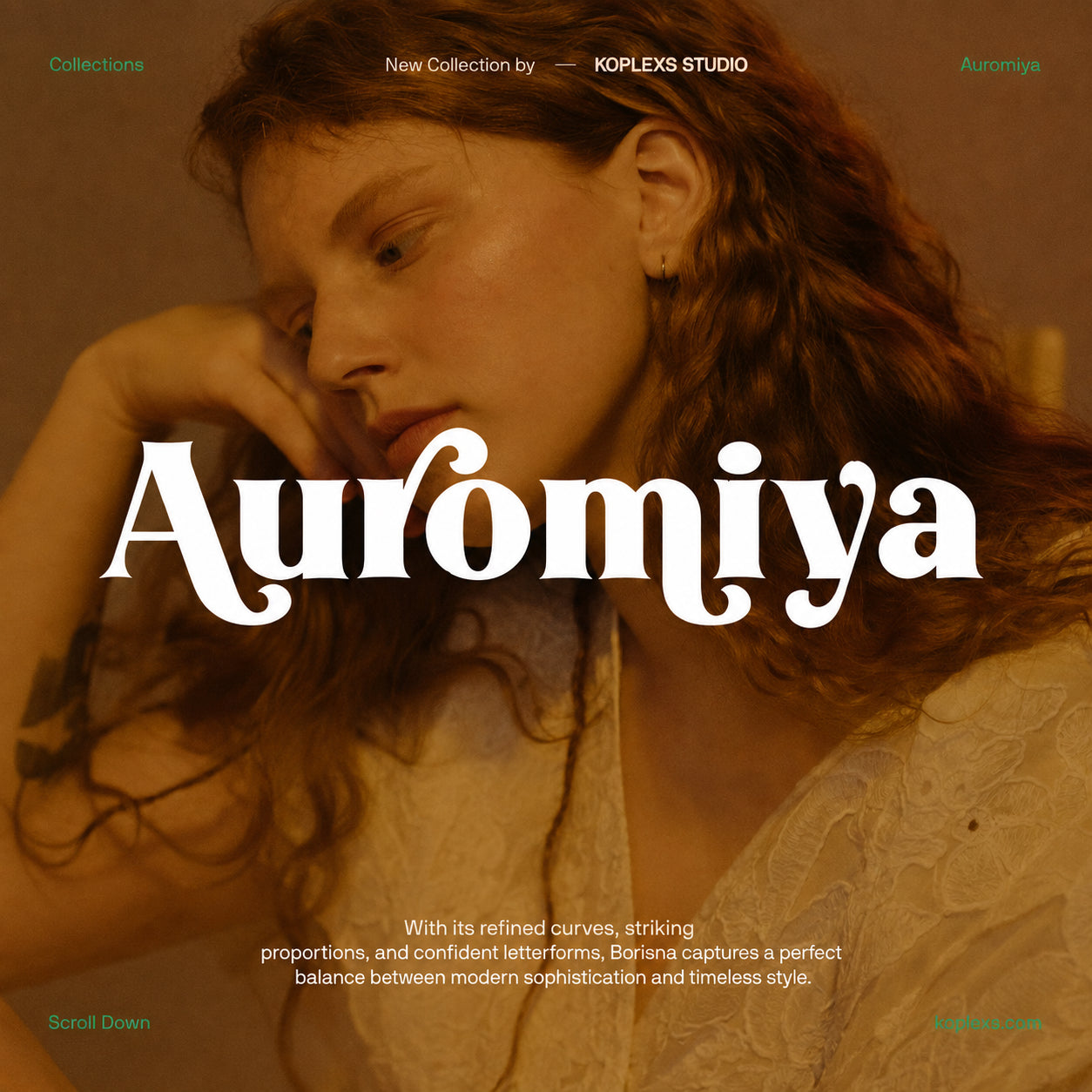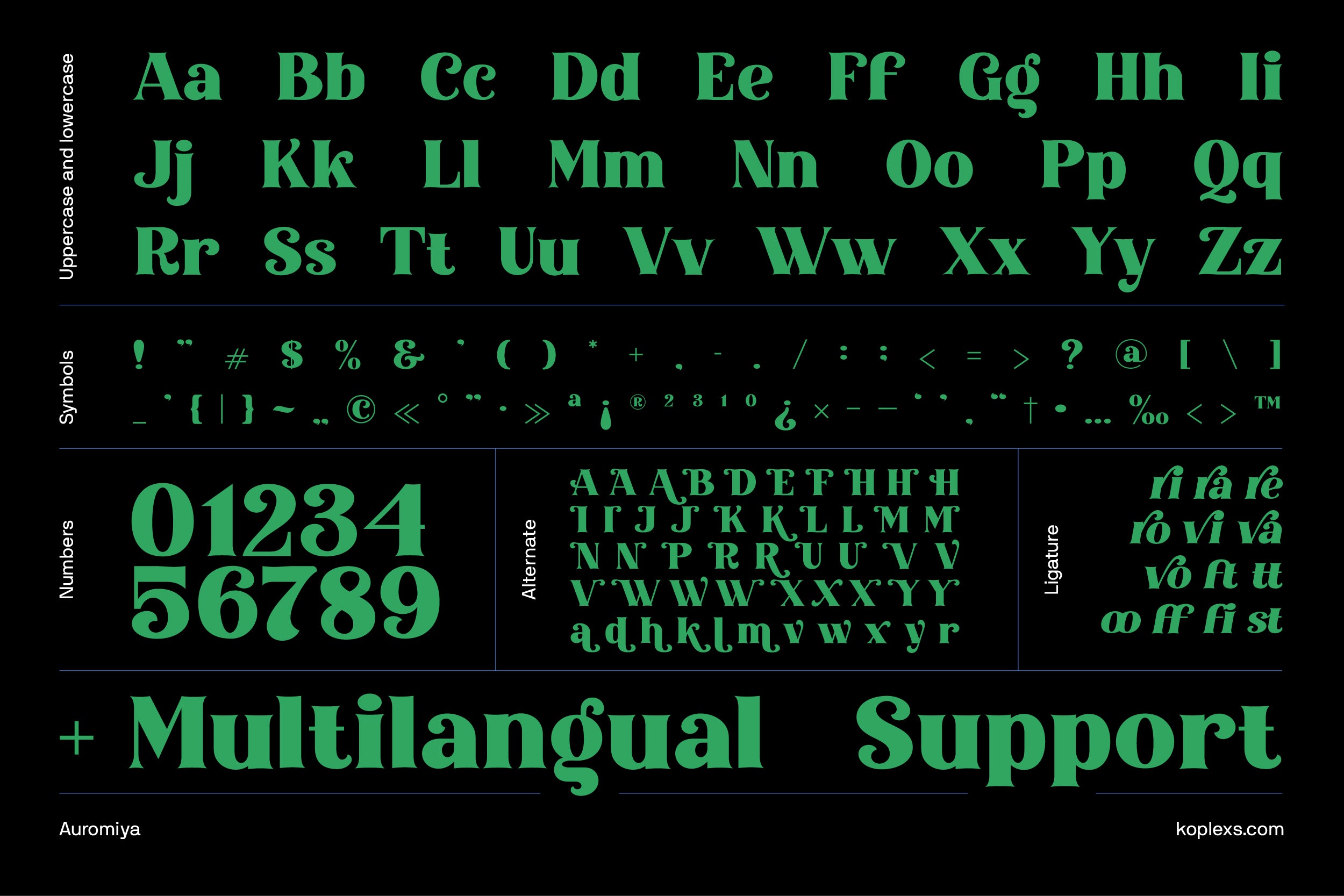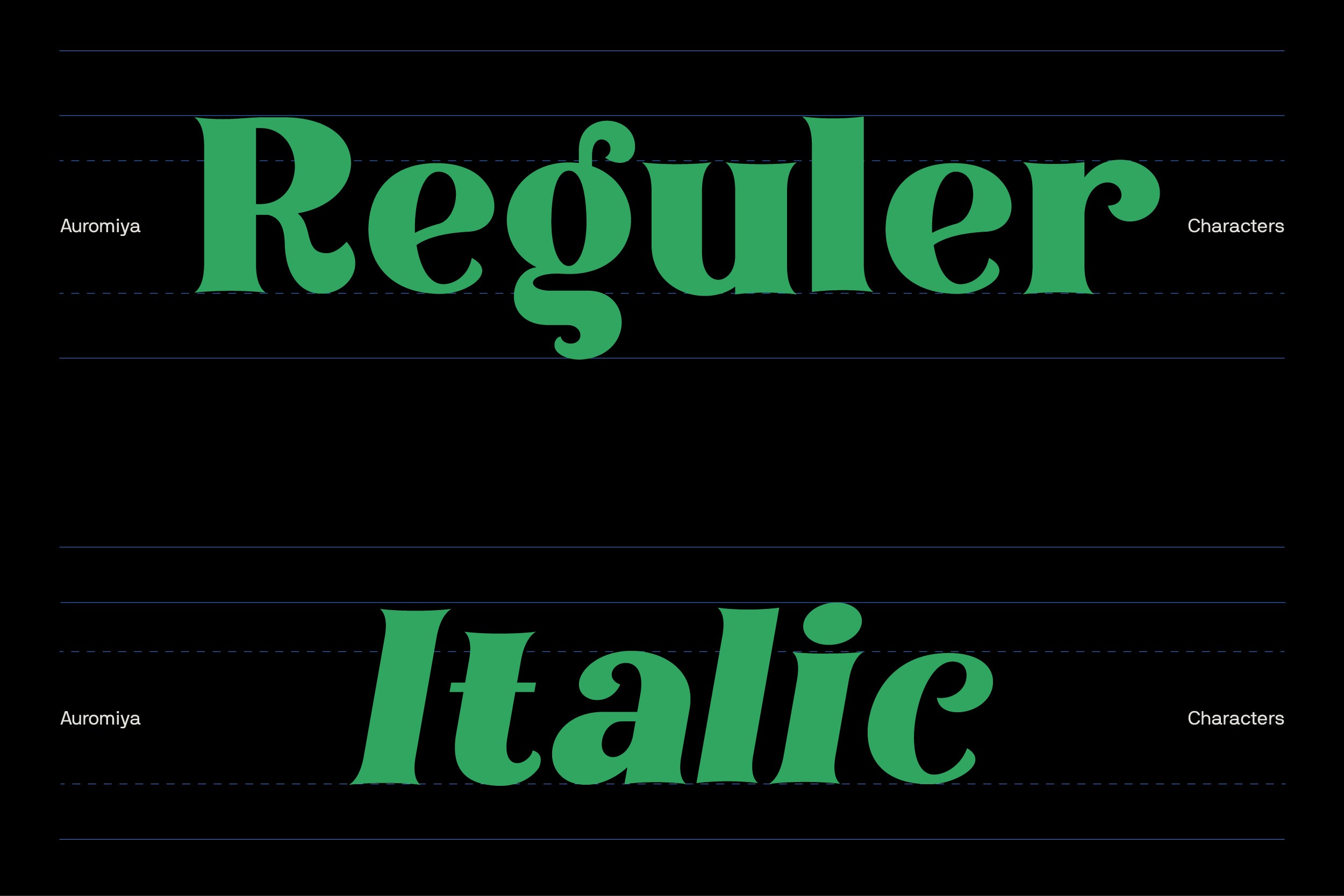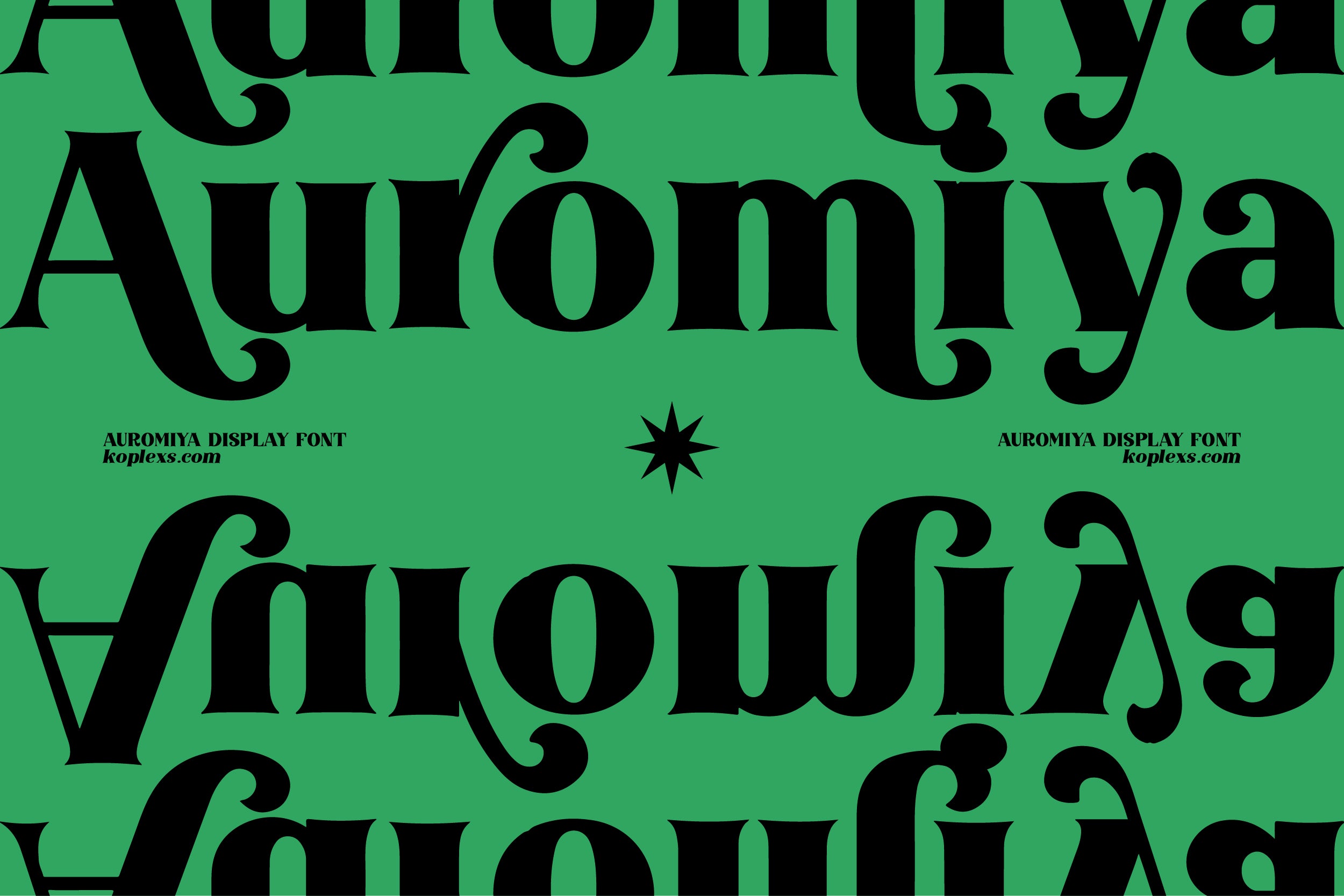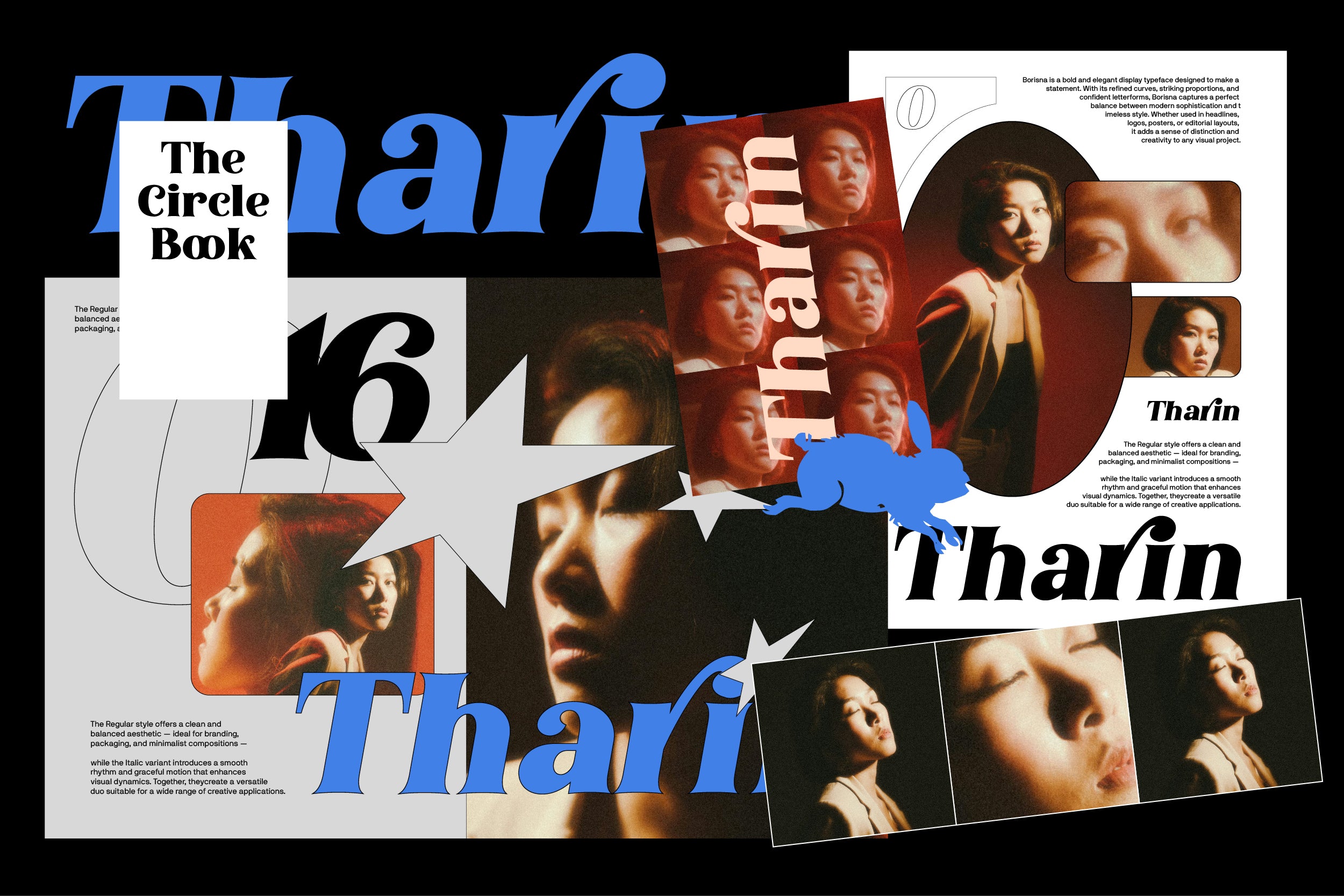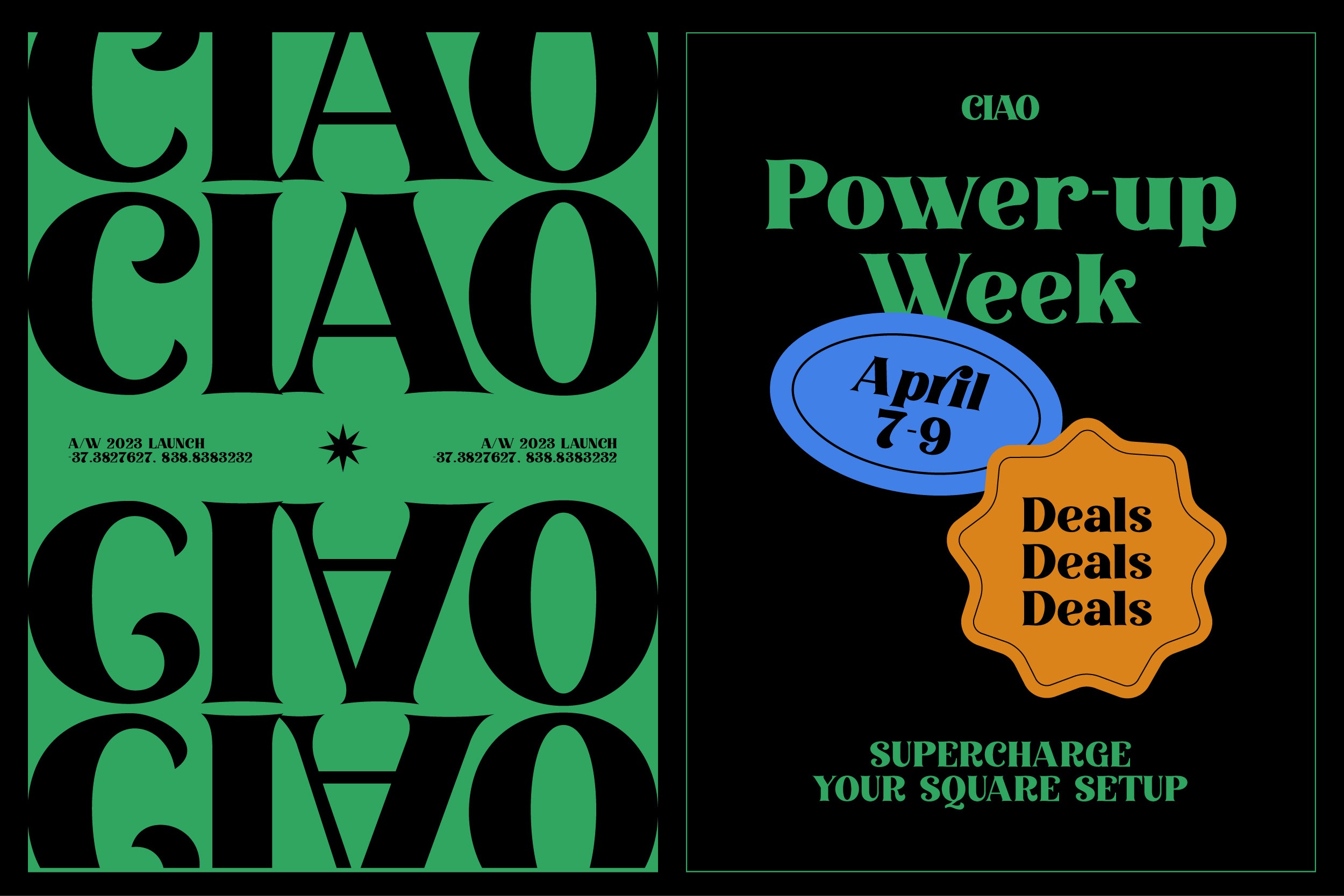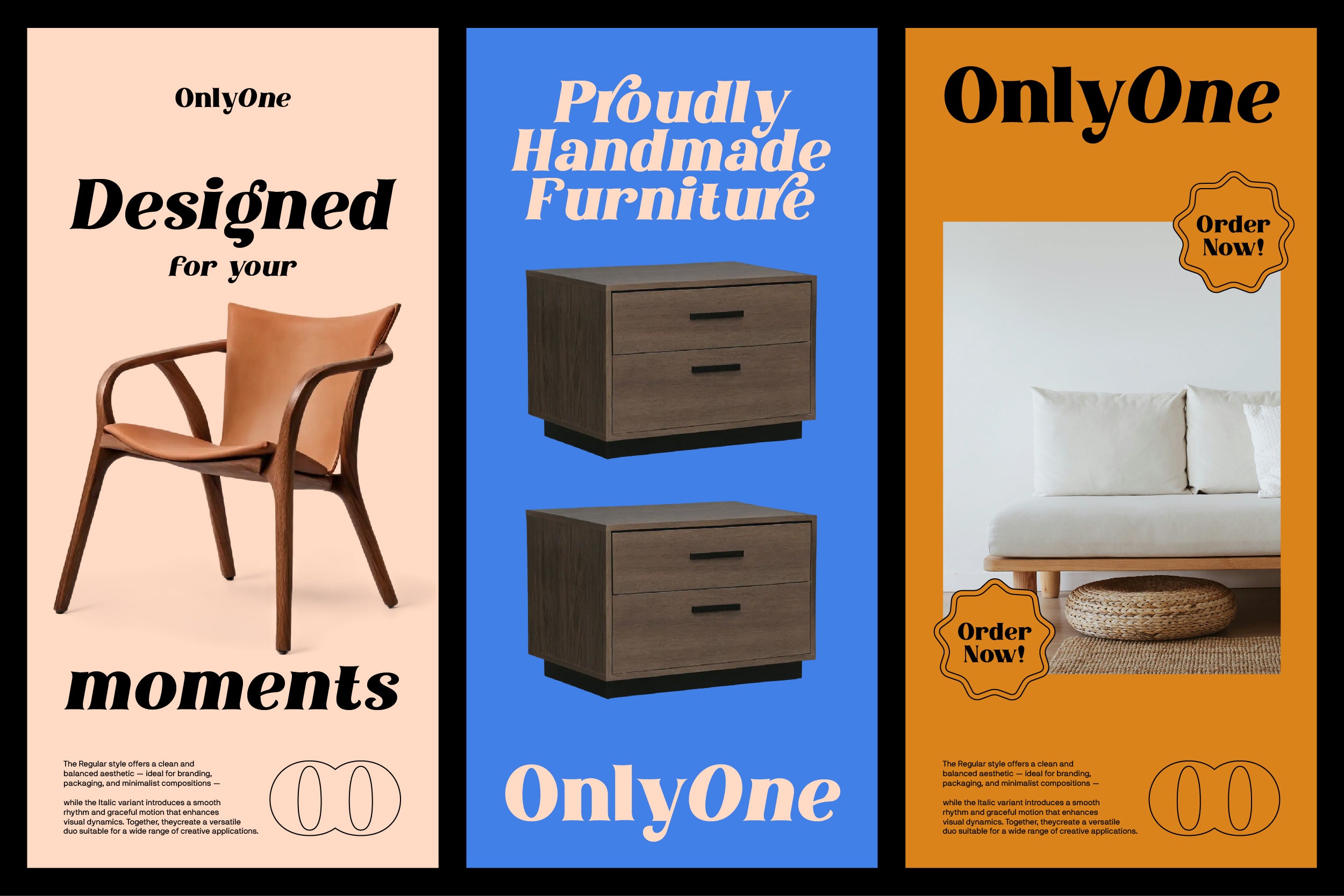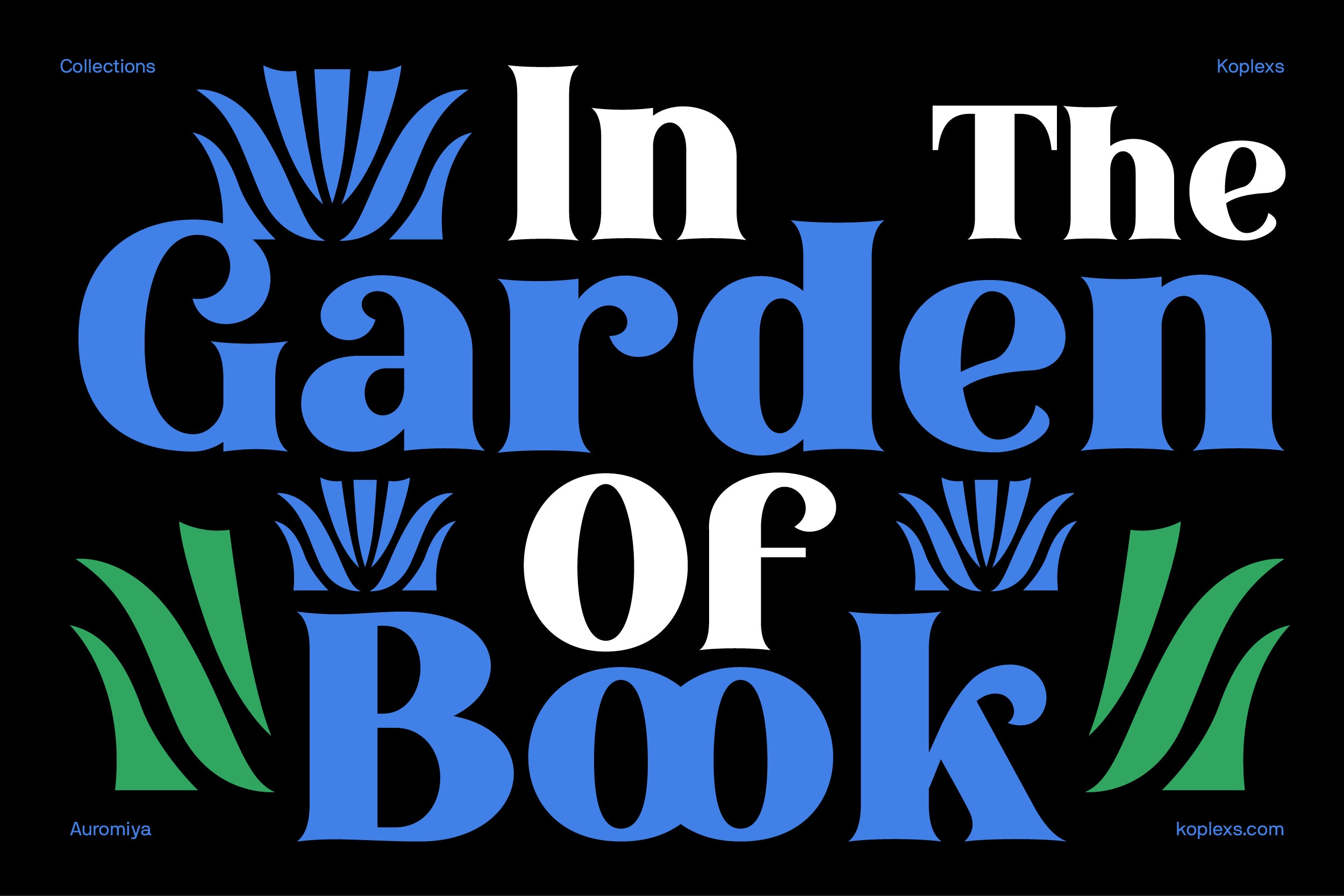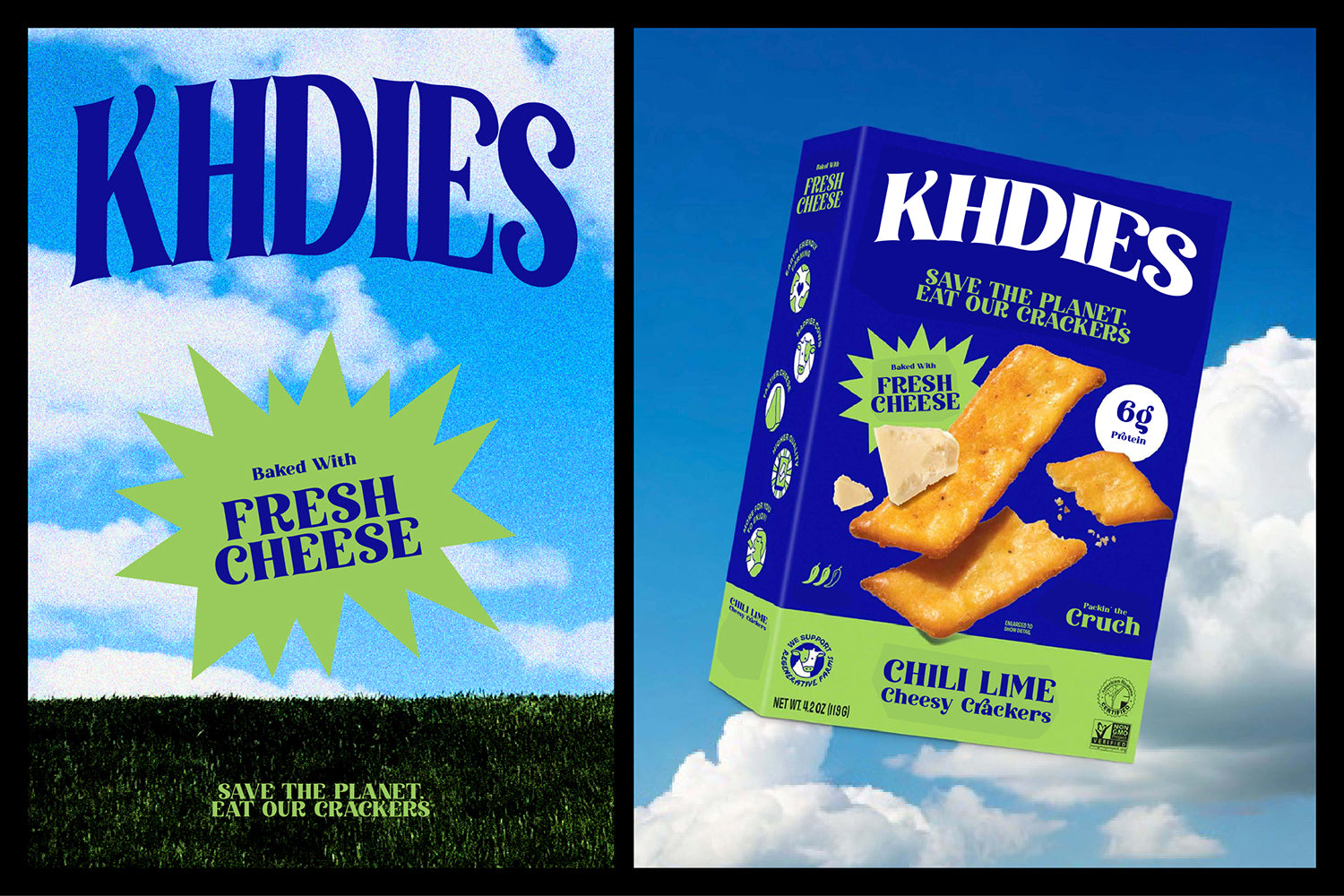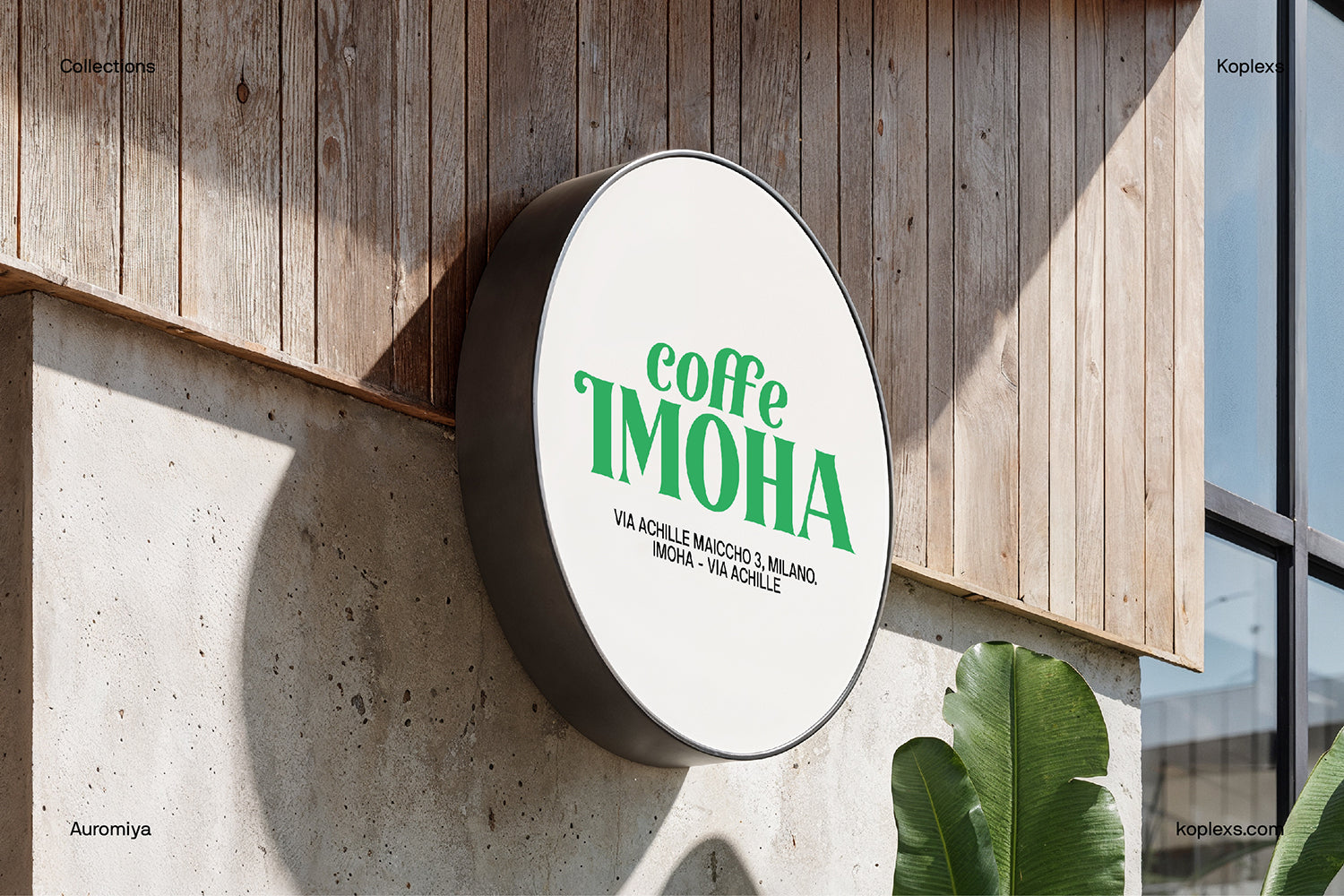
Auromiya Font | Elegant Display Serif
Auromiya is an expressive display serif created for designs that deserve attention. Its high contrast strokes, refined curves, and distinctive curled details bring together classic elegance and a fresh contemporary feel.
Designed to shine at large sizes, Auromiya gives headlines a confident personality without losing its polished appearance. Use it to create stylish fashion identities, memorable packaging, bold promotional graphics, or editorial layouts with a sophisticated edge.
Auromiya pairs beautifully with a clean sans serif for contrast, but its strong character also allows it to stand confidently on its own. From luxurious and artistic concepts to playful modern campaigns, this display serif helps every message feel distinctive and memorable.
Auromiya Font is an elegant display serif characterized by high contrast strokes and refined curves, designed for impactful headlines and branding. It features distinctive curled details, making it suitable for a variety of design applications, and is available at special prices on our website.